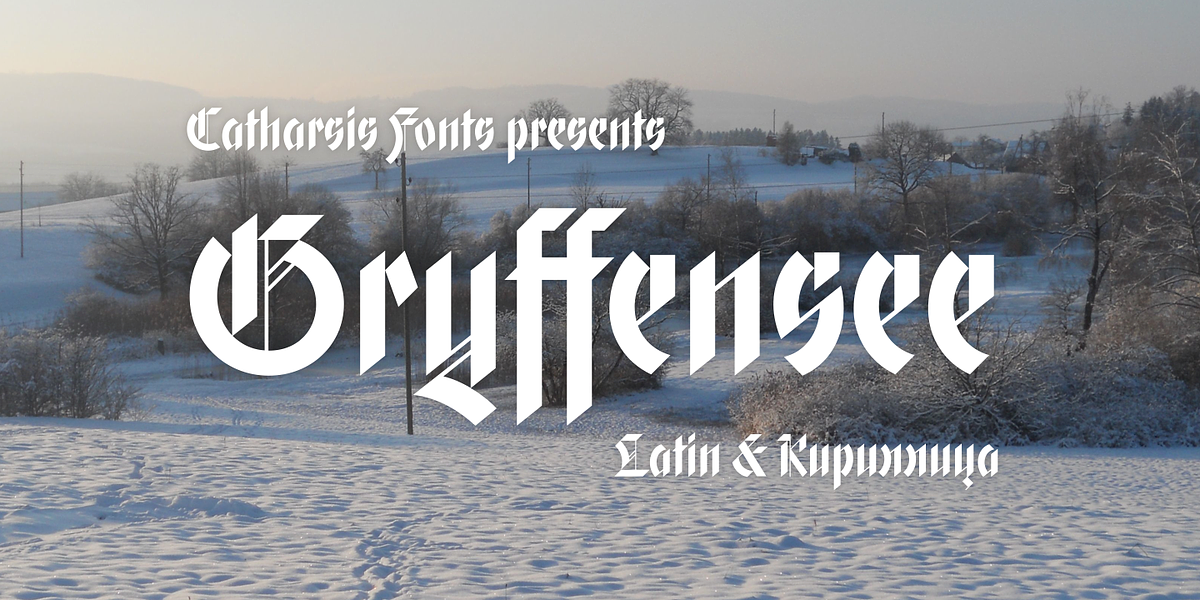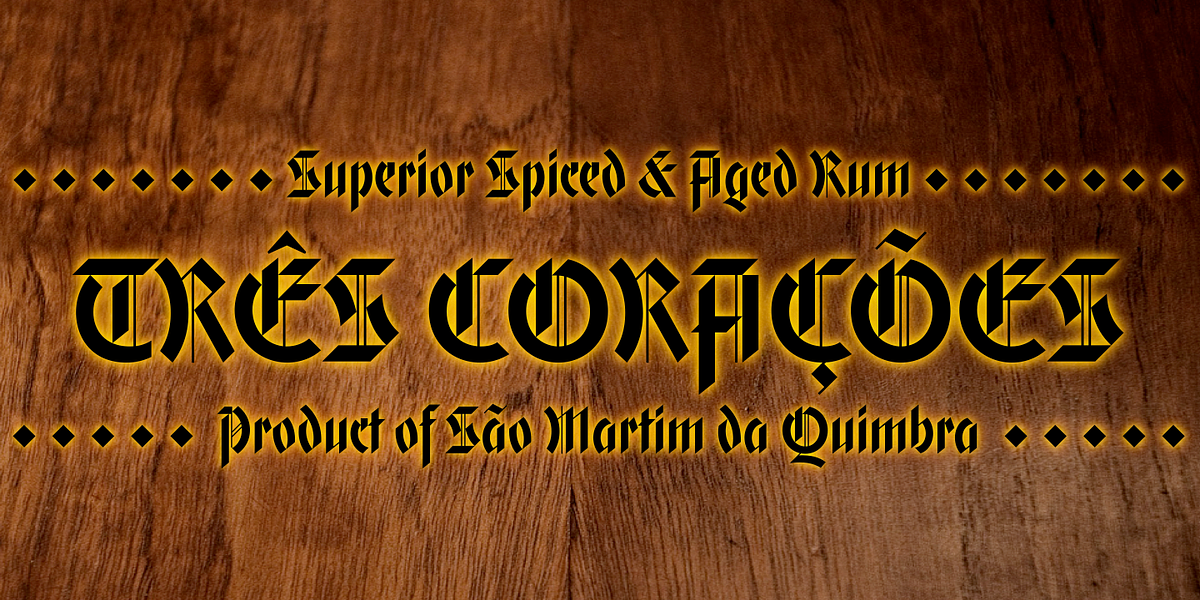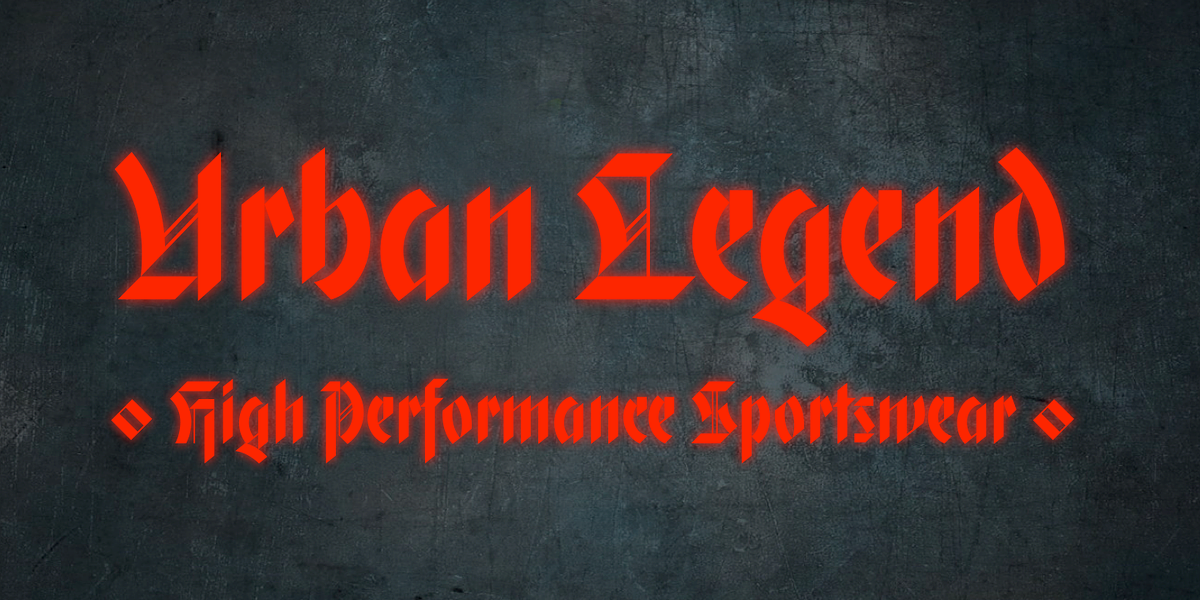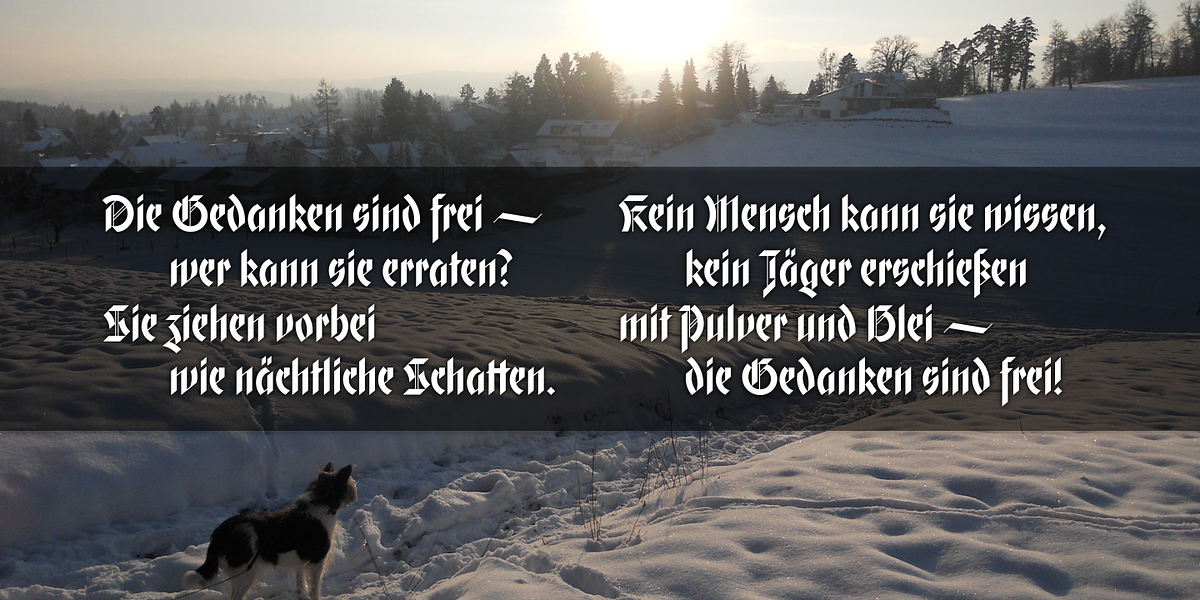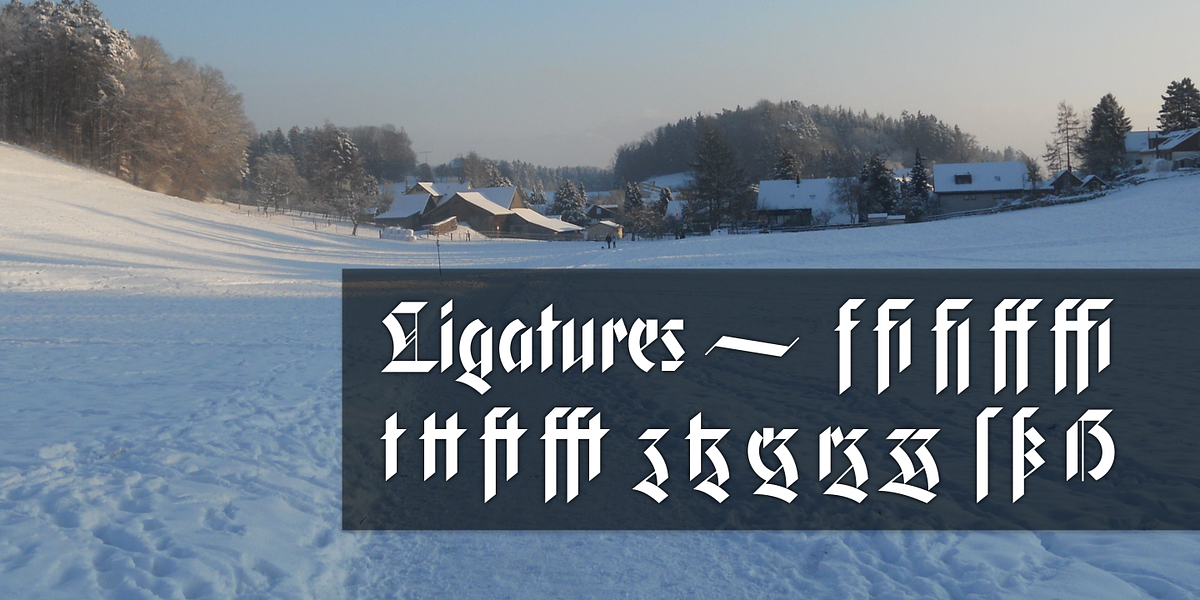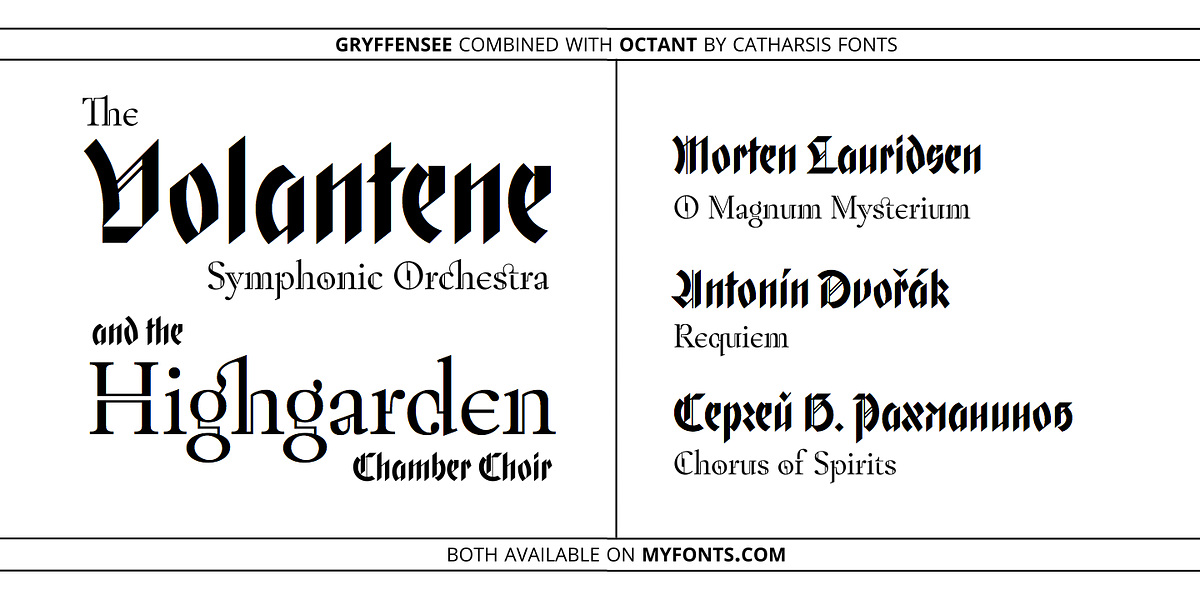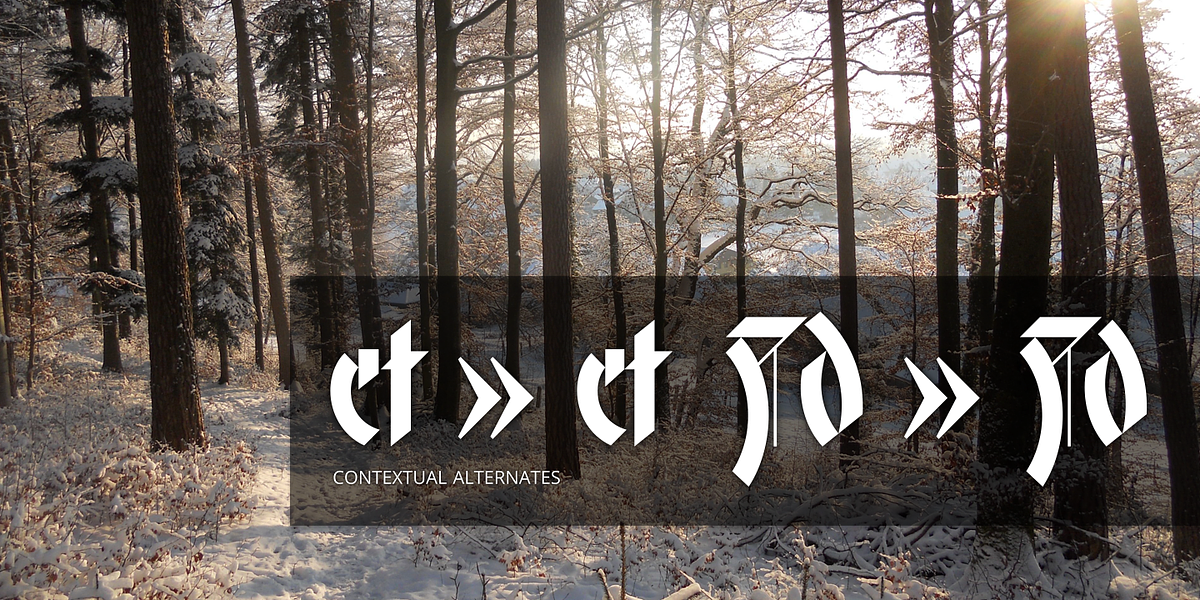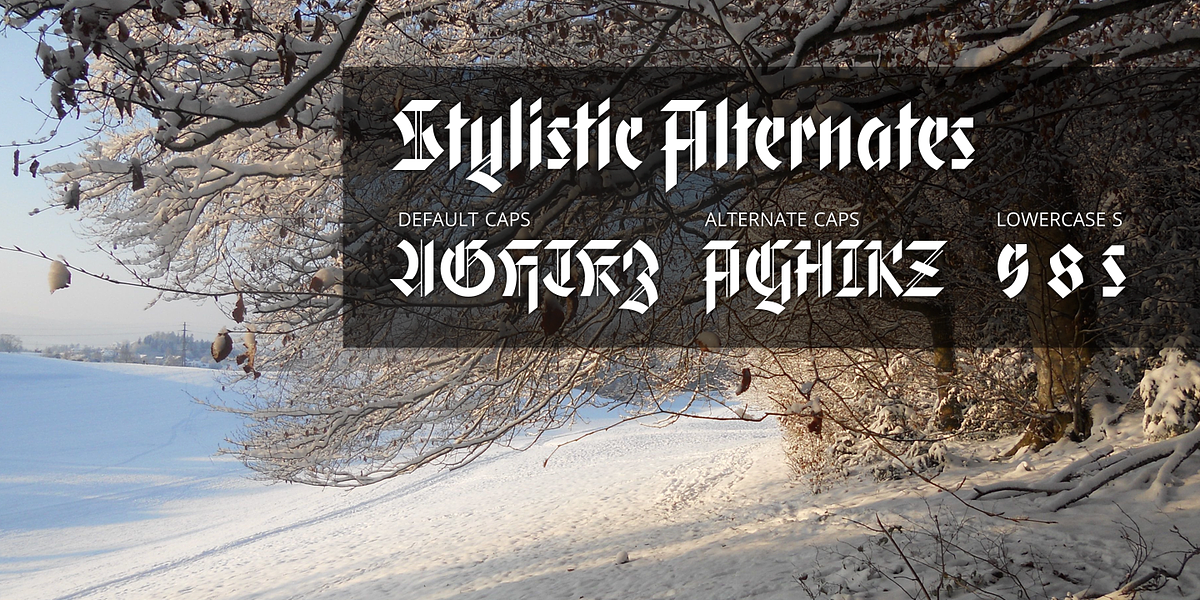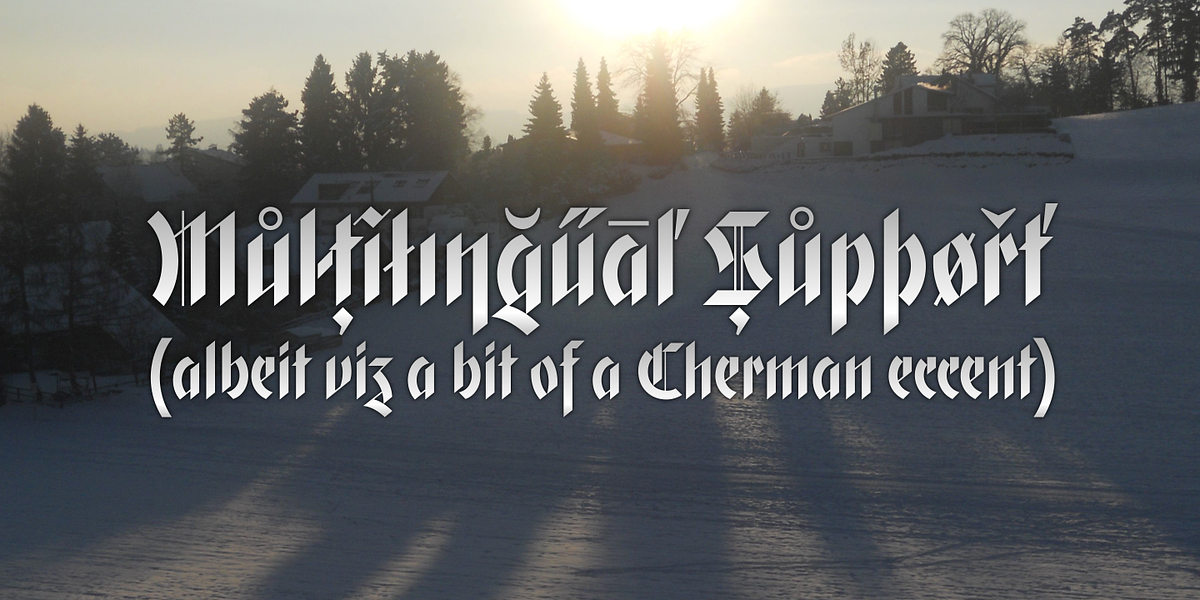
Gryffensee
Gryffensee is a geometric blackletter font designed to blend the traditional weight and presence of Gothic script with a modern aesthetic. It features clean lines, sharp cuts, and a tightly controlled design. The font includes OpenType features like ligatures, contextual alternates, and stylistic sets, allowing for customization. Gryffensee excels in display settings, logotypes, and short text passages. Unlike typical blackletters, it handles all-caps usage well and offers Cyrillic support in the Pro version.